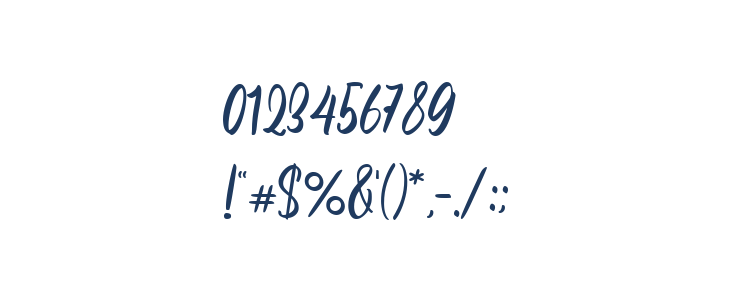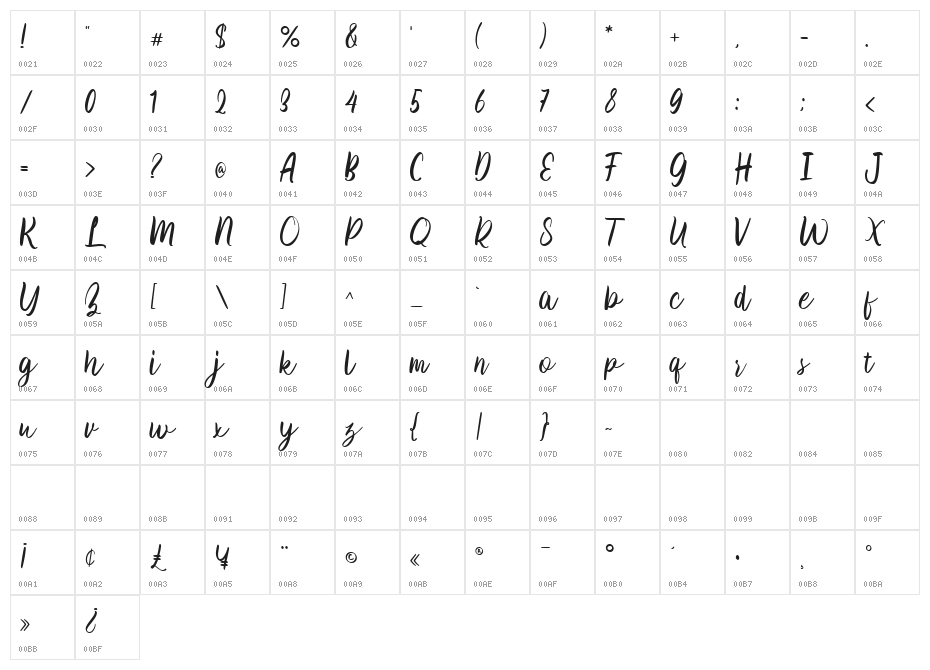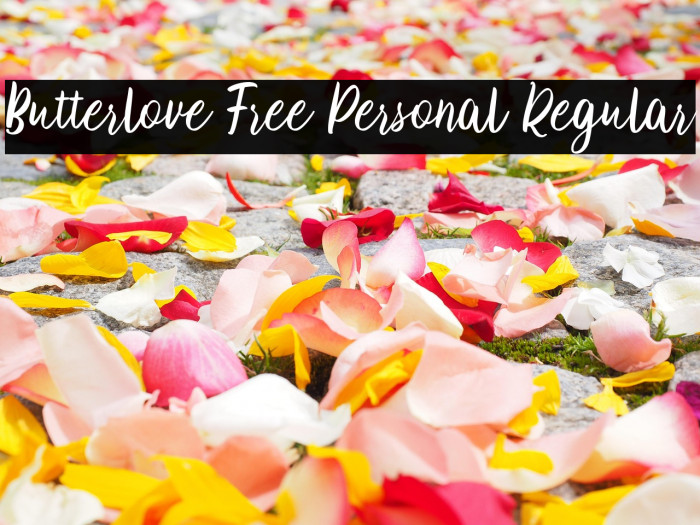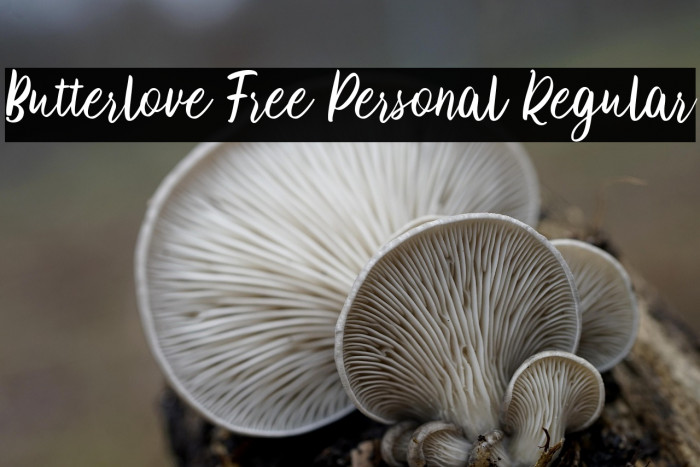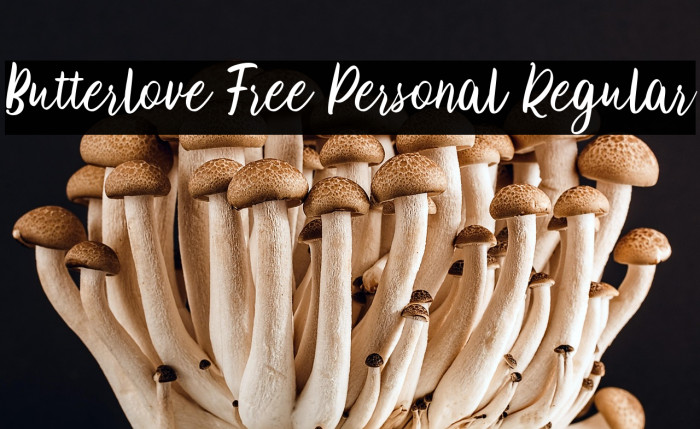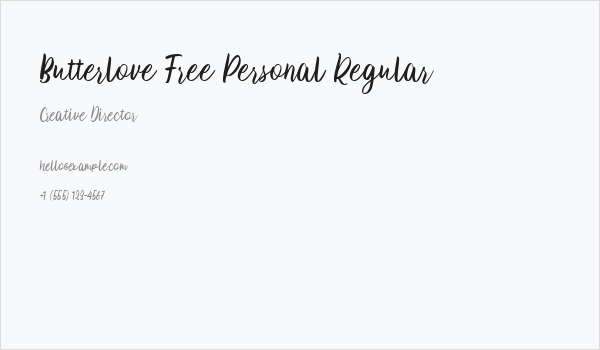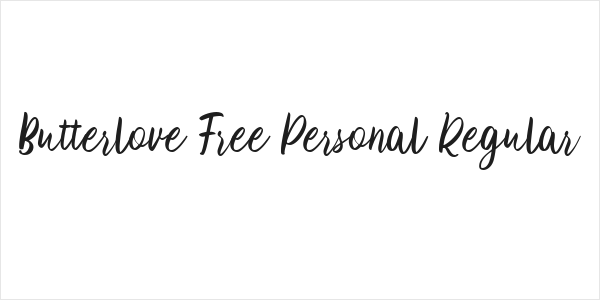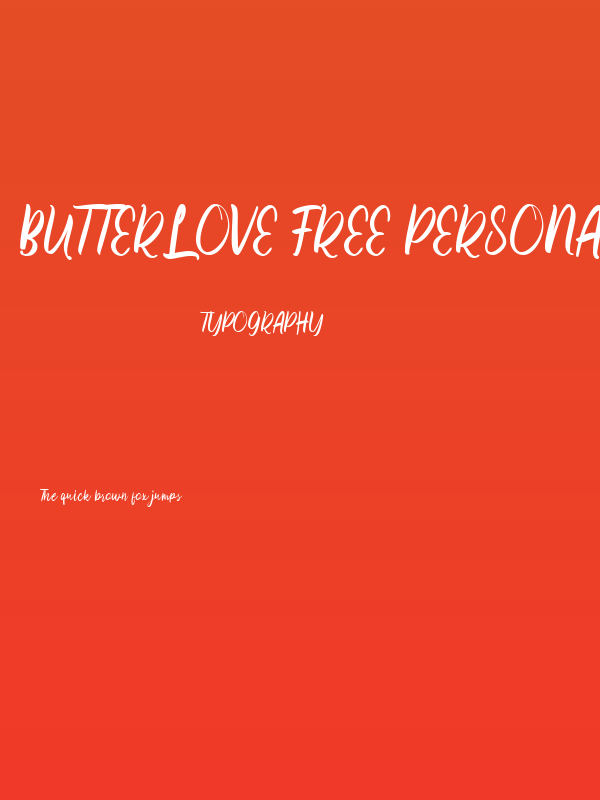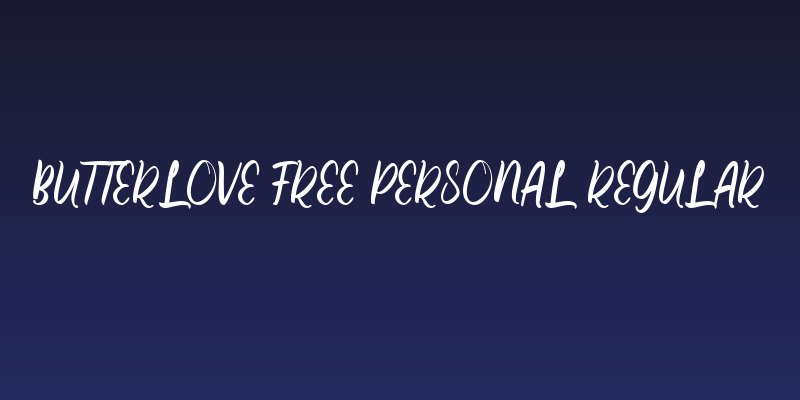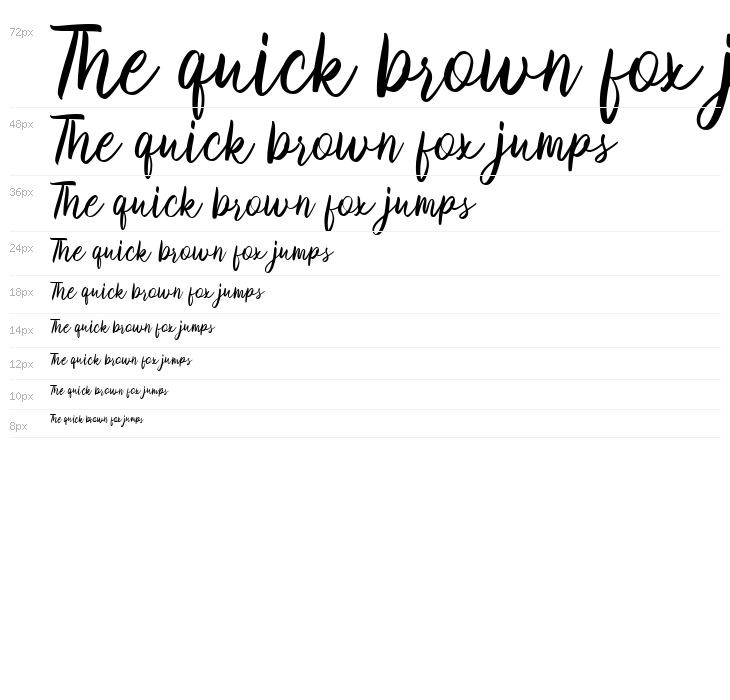
Butterlove Free Personal Regular Font
Butterlove Free Personal Regular Description
This font exudes a playful and artistic flair, characterized by its flowing, cursive style. The letters are interconnected, giving a sense of continuity and fluidity. The strokes are bold and confident, with a slight slant that adds to its dynamic appearance. The uppercase letters are particularly expressive, with exaggerated loops and swirls, while the lowercase letters maintain a more restrained elegance. The numbers and special characters are consistent with the overall style, ensuring a cohesive look. This font is perfect for projects that require a touch of creativity and personality.